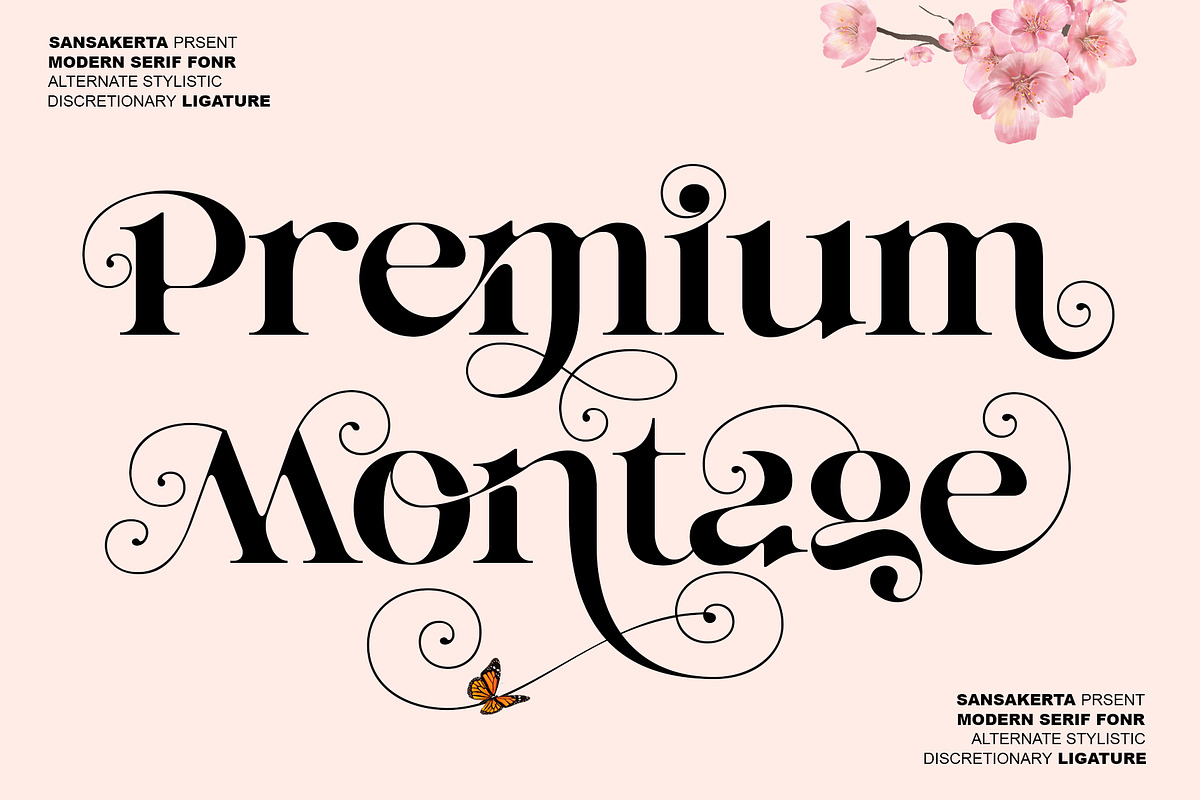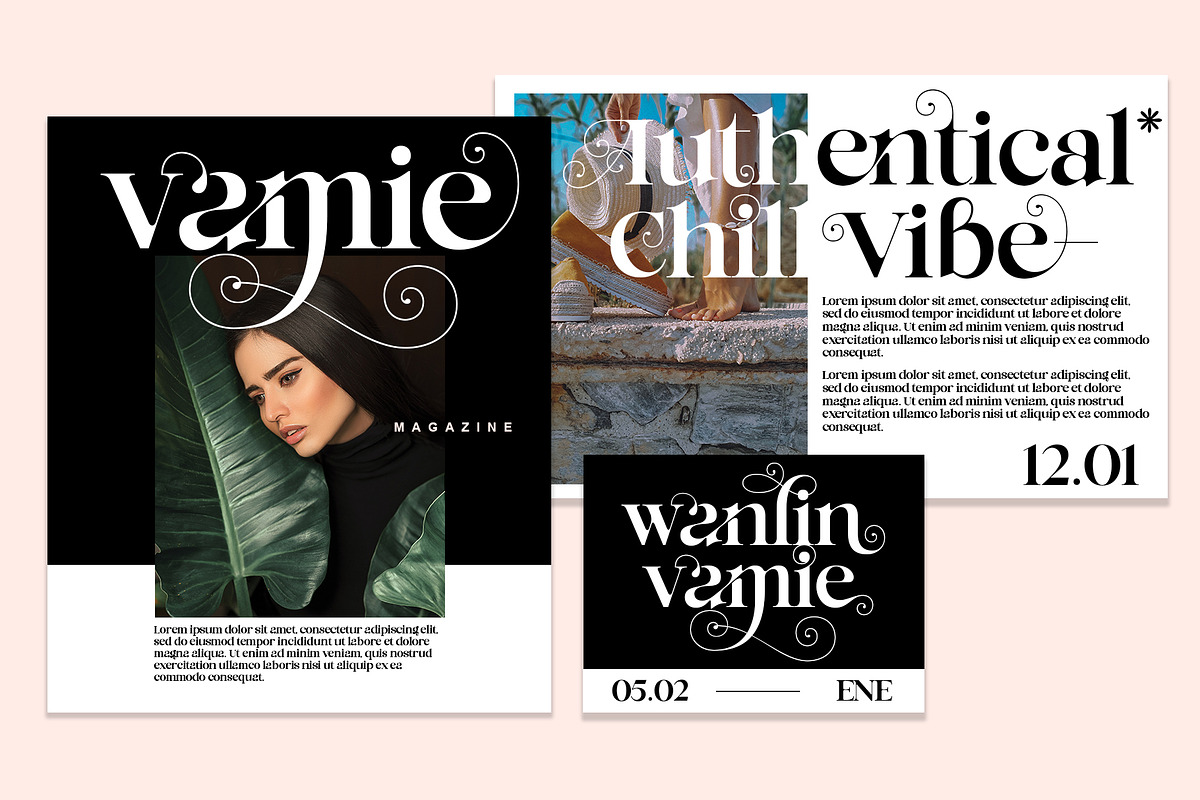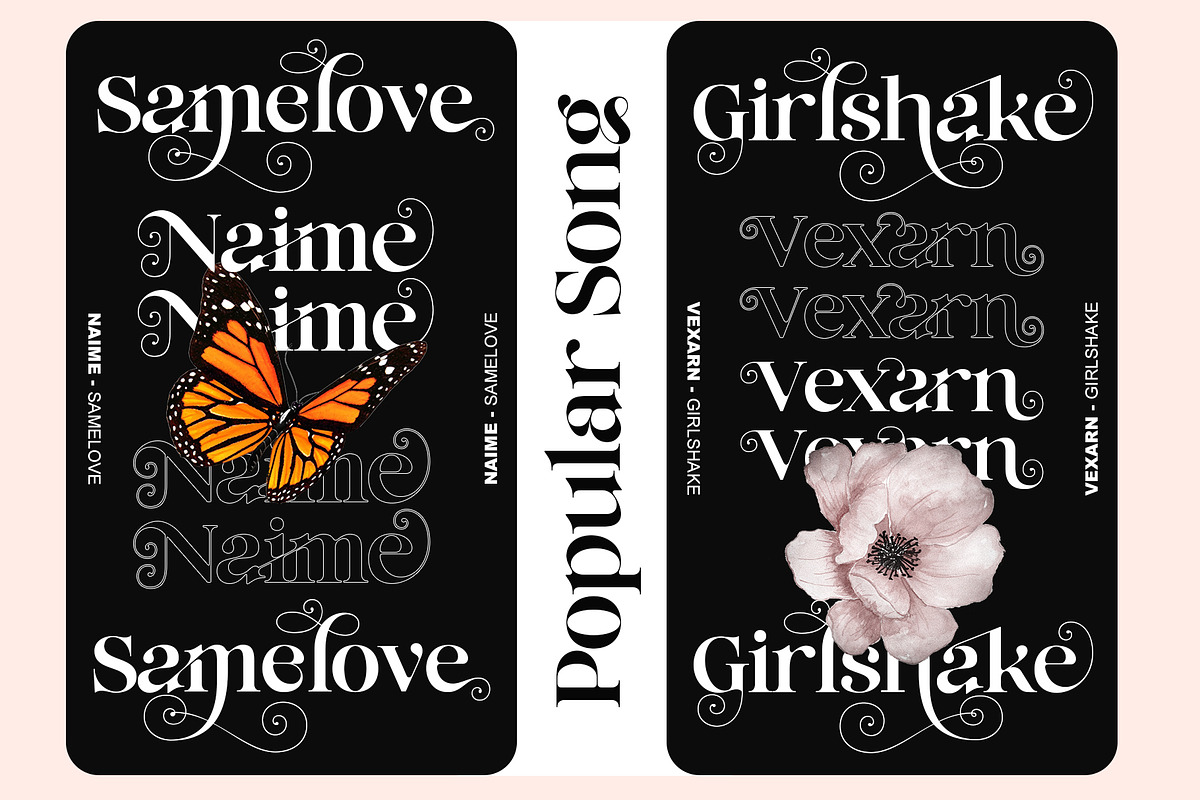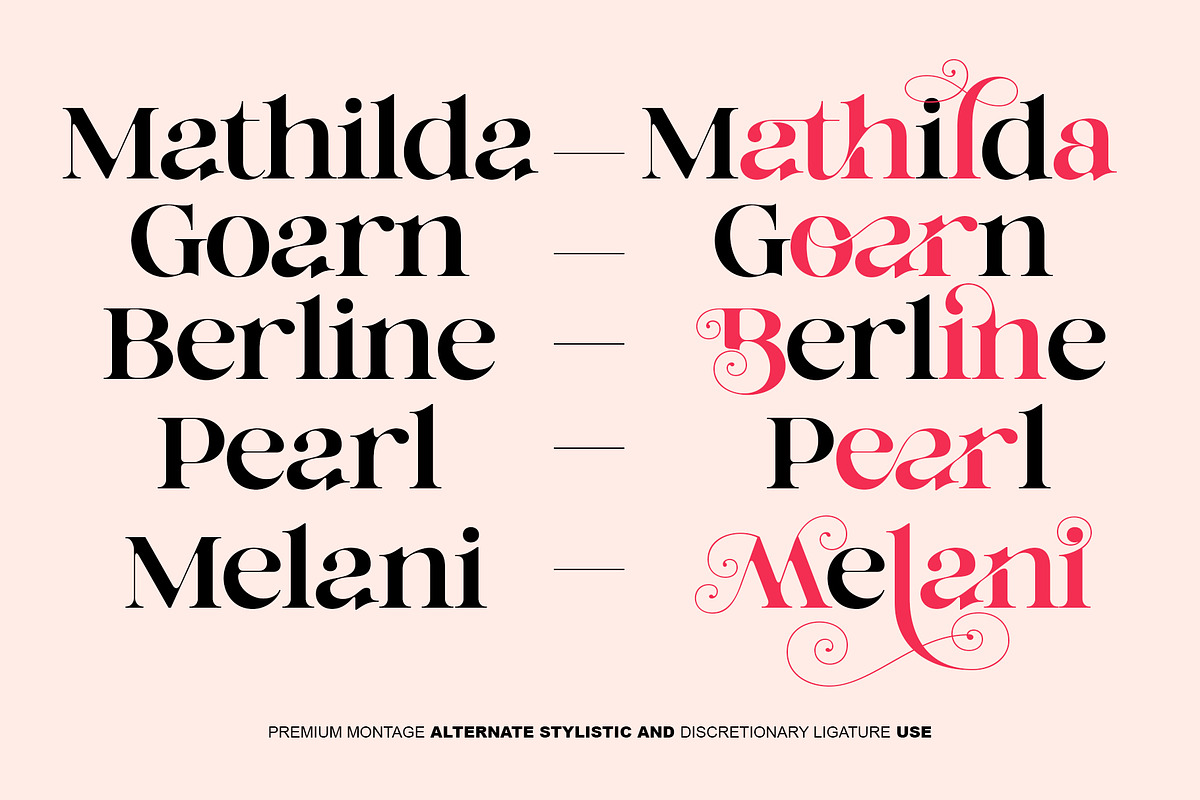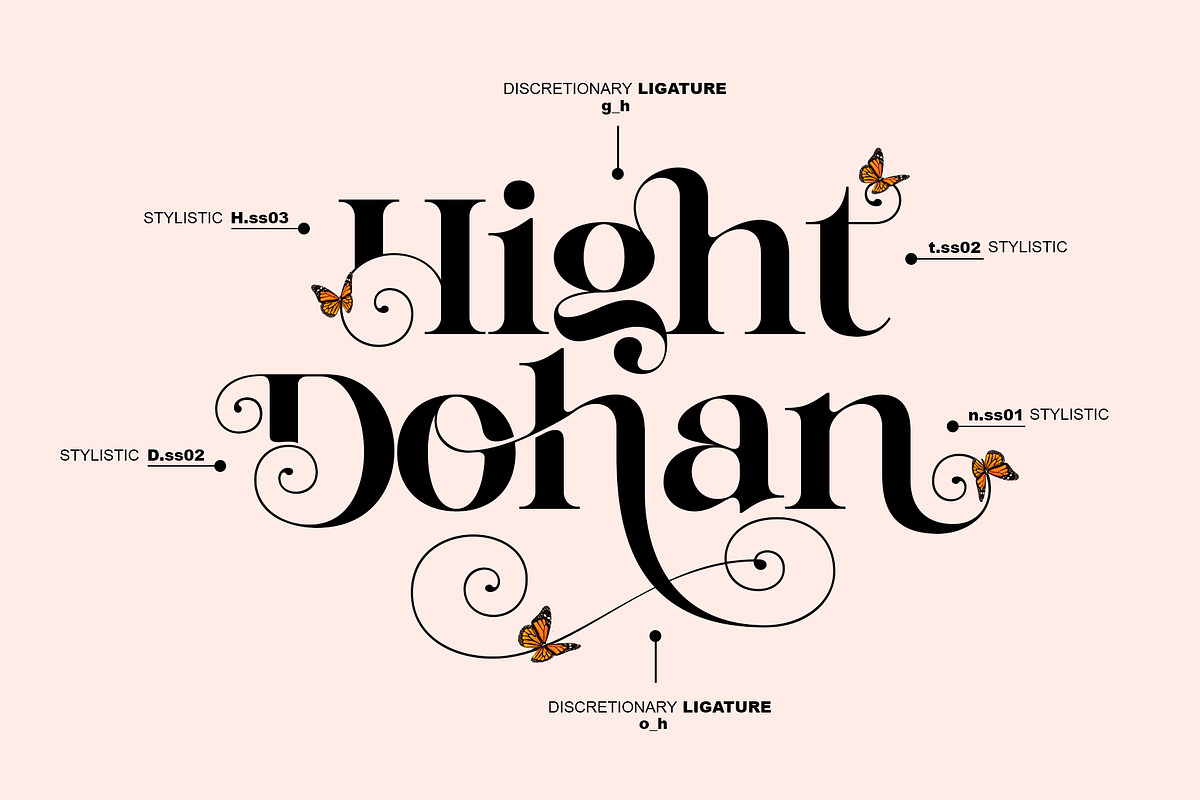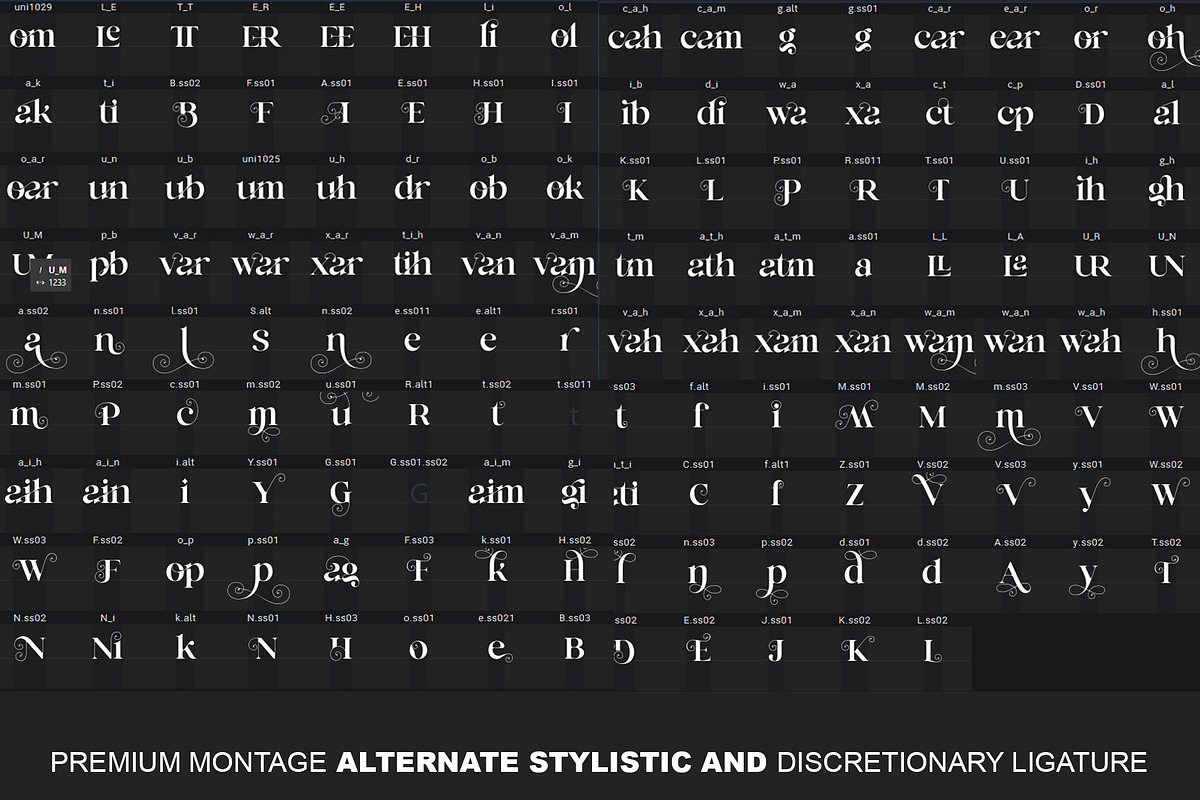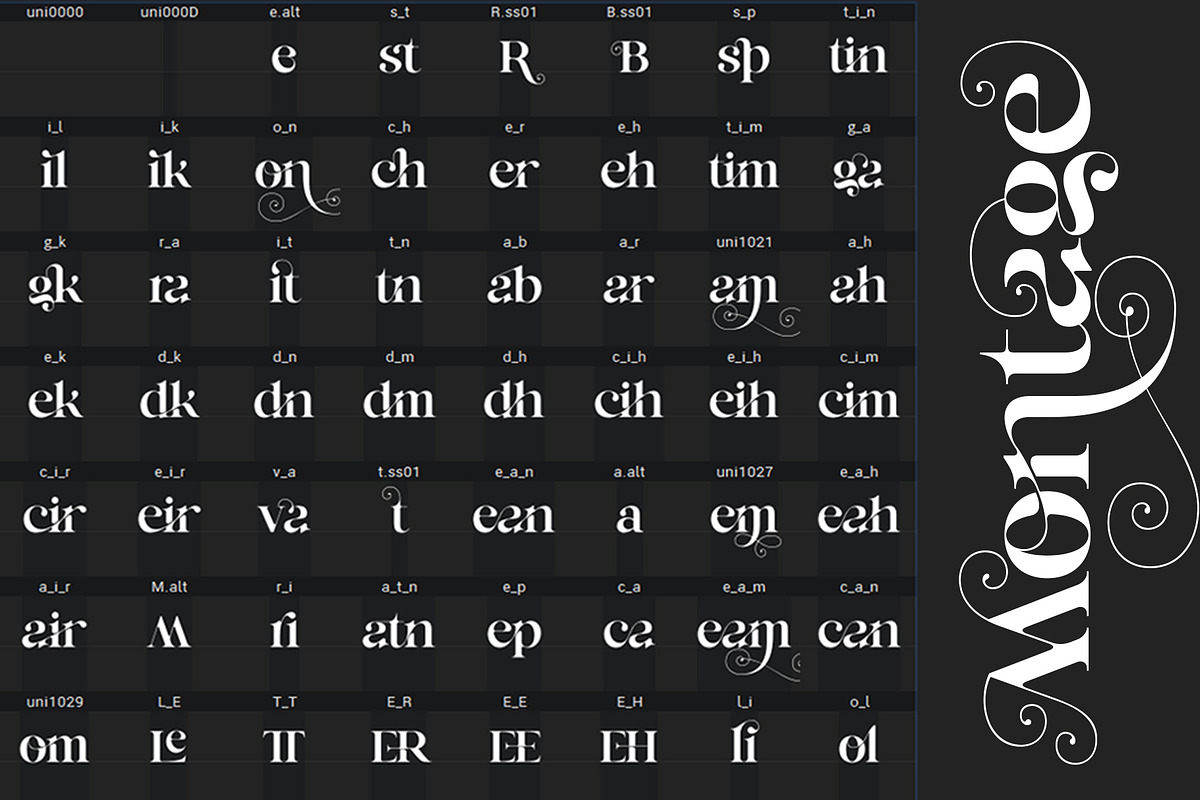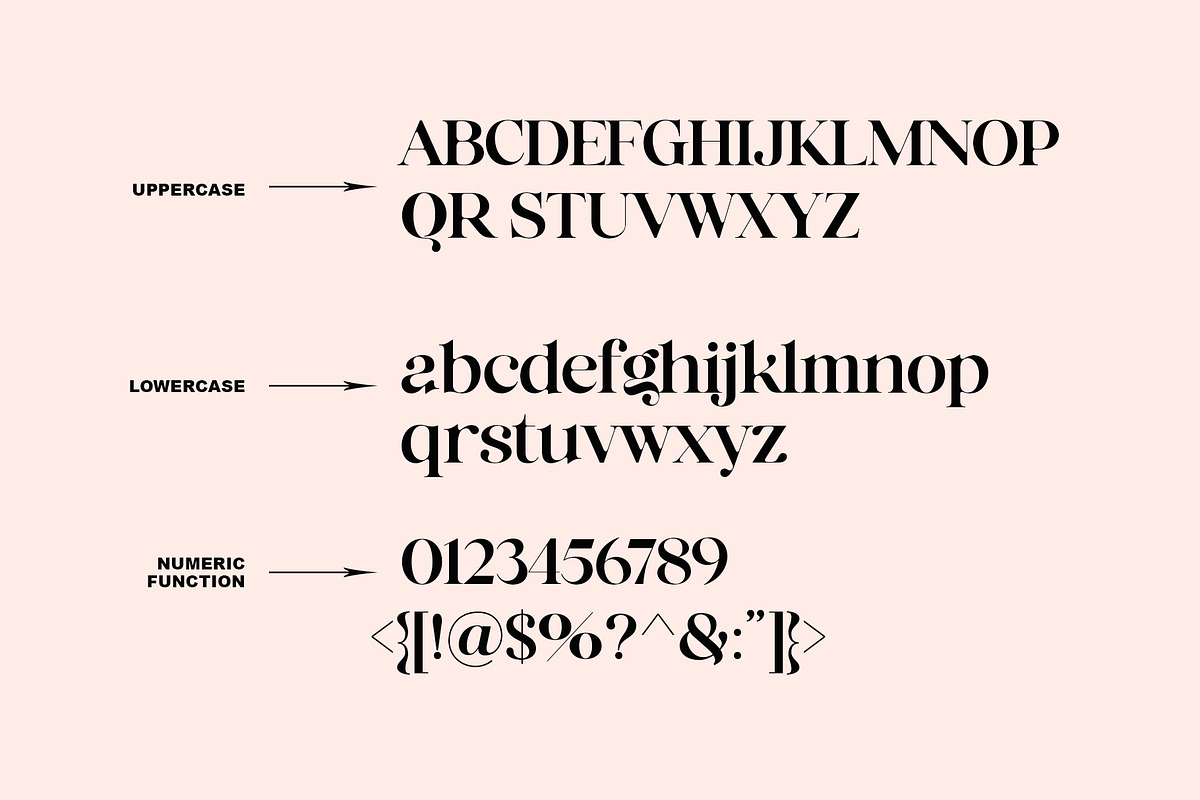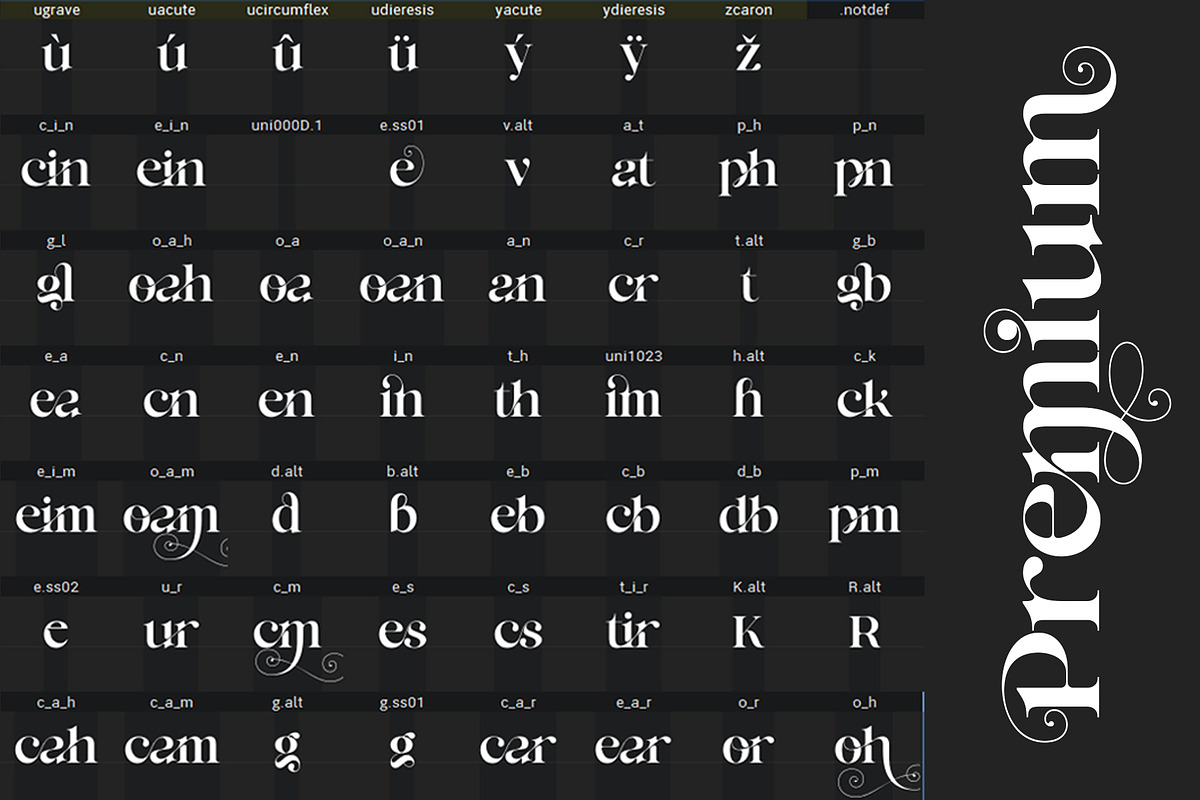
Premium Montage
Hello, this time we would like to introduce a new product. namely Premium Montage, a Serif display font that has a classic, feminine, and elegant style wrapped with a beautiful Alternate stylist.
The Swish Hart font is perfect for various projects like logos & branding, invitations, stationery, wedding designs, social media posts, advertisements, printed quotes, product packaging, product designs, labels, photography, watermarks, special events or anything else.
Premium Montage is also included full set of:
- uppercase and lowercase letters
- multilingual support full latin simple language
- numerals
- punctuation
- Stylistic